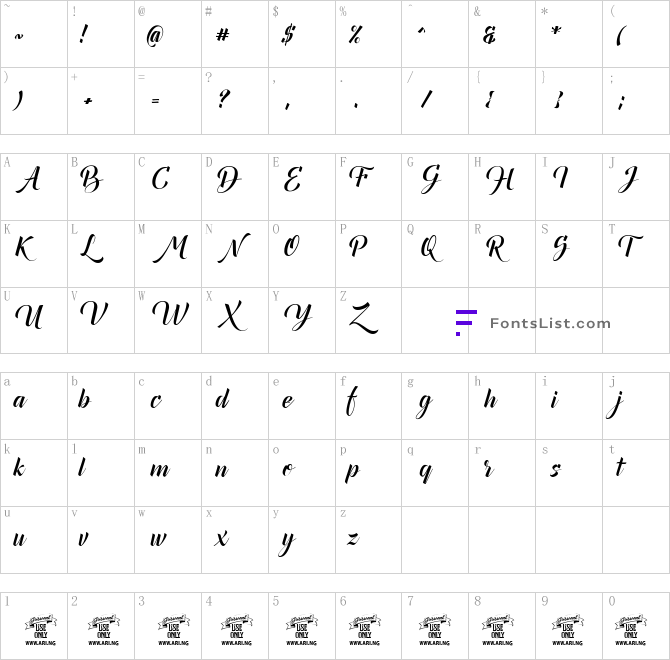
Canela-Bark-Bold-PERSONAL-USE.ttf is a very beautiful artistic font, Canela-Bark-Bold-PERSONAL-USE.ttf is widely used in the design and printing of various books and pictures,Canela-Bark-Bold-PERSONAL-USE.ttf has a strong visual impact,Canela-Bark-Bold-PERSONAL-USE.ttf is a commonly used font in newspapers, magazines and books, and is used in posters, e-commerce Poster design, store design, logo design, font design and other fields.Canela-Bark-Bold-PERSONAL-USE.